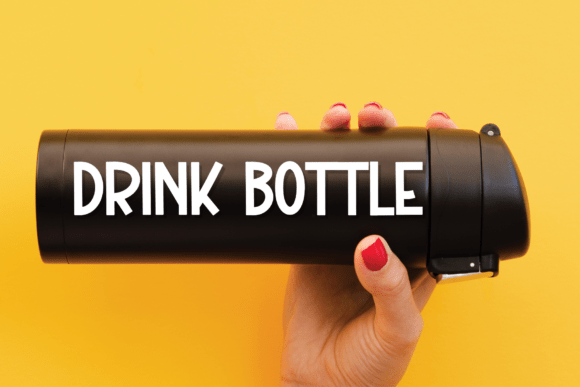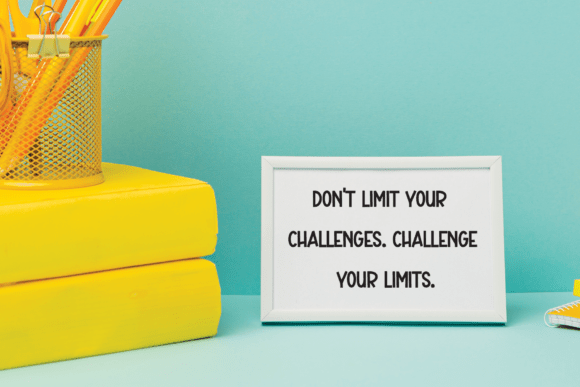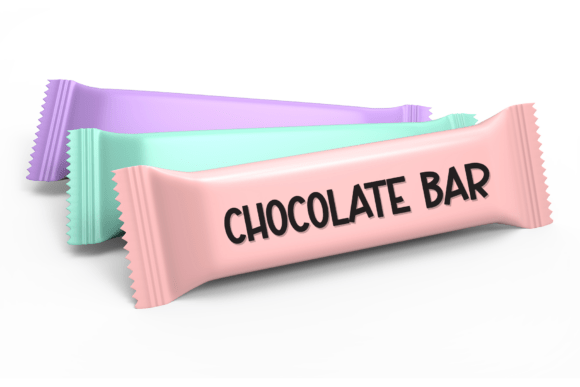
Cartoon Font
Cartoon is a bold and cheerful handmade font that brings energy and fun to your designs. With its bouncy letterforms and thick outlines, it’s ideal for children’s projects, cartoons, games, and anything that calls for lively expression.